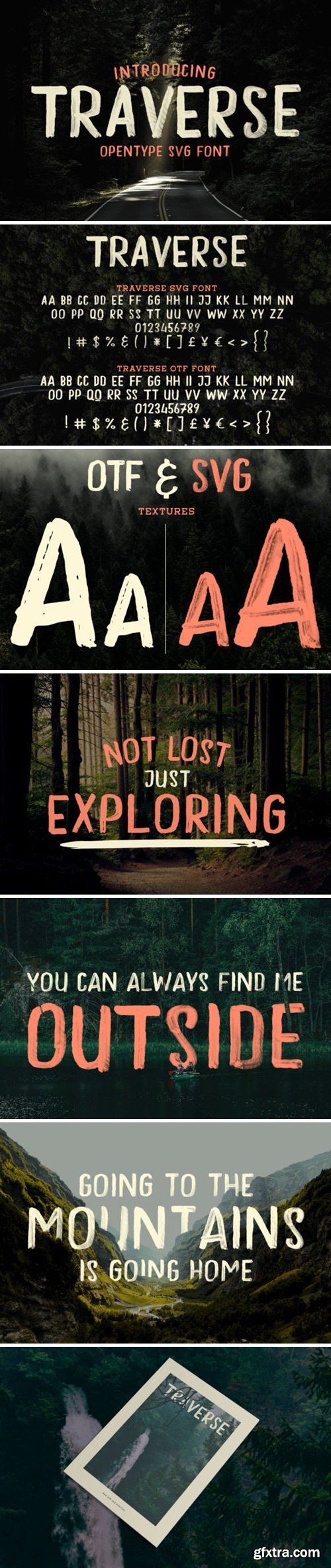
traverse 字体
Traverse is a new realistic hand painted sans serif font that can go anywhere! This natural font has great texture throughout and includes 2 sets of capital characters to ensure your design looks truly handwritten. Inspired by hand-painted trail signs, this font is made for the great outdoors. Use the SVG version if you’d like a real hand-painted feel with unique transparency, or use the OTF version for a more versatile and rugged result. Great for apparel, branding, marketing, advertising, stationery, web headers & much more!